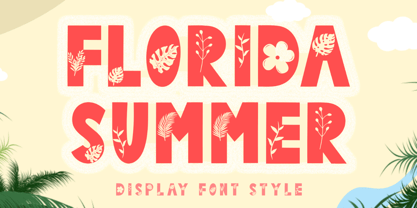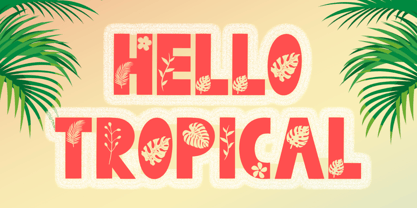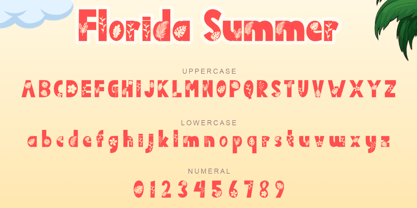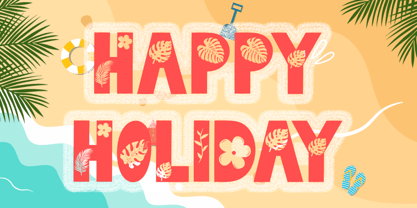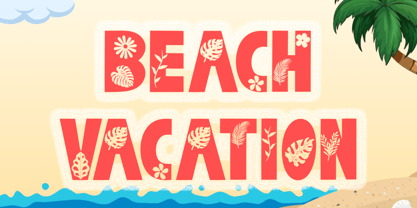
Florida Summer
by Yoga Letter
The Florida Summer Font Family was designed by Isroni Yoga Prasetya and published by Yoga Letter. Florida Summer contains 1 styles. More about this family
"Florida Summer" is a unique and playful display font. This font is equipped with uppercase, lowercase, numerals, punctuations and multilingual support. It is very suitable for use in summer, camping, holiday, vacation, spring, banner, poster, print, branding, logo, sticker and others.